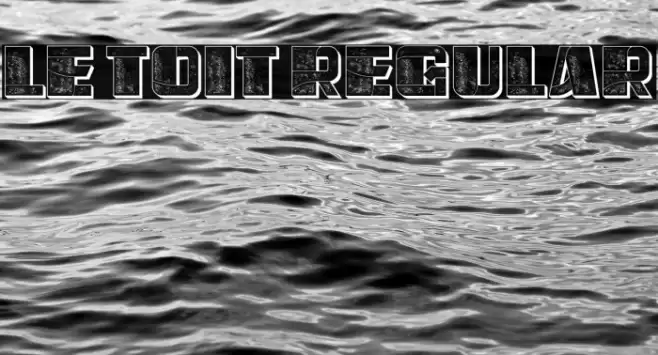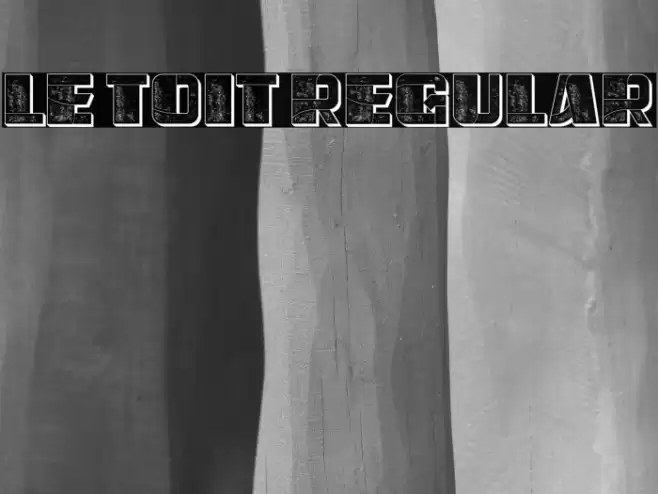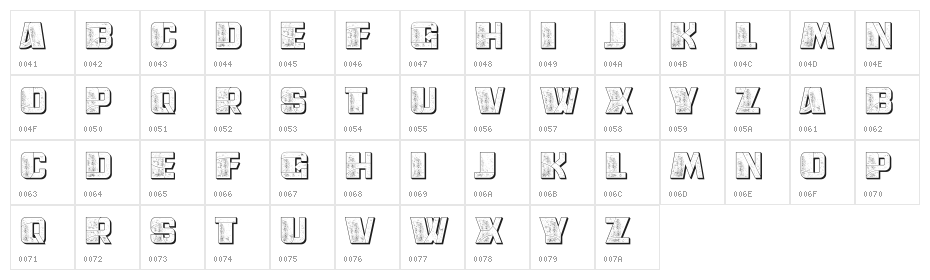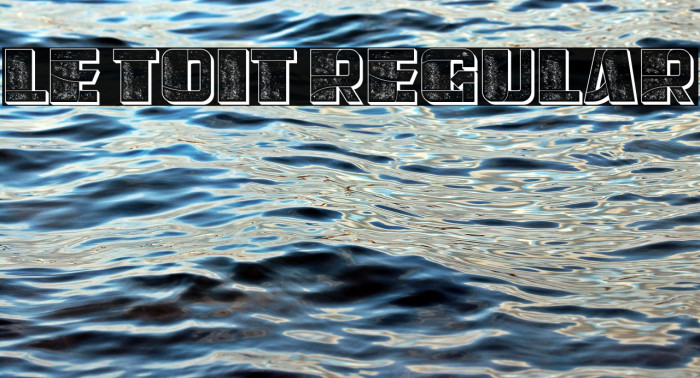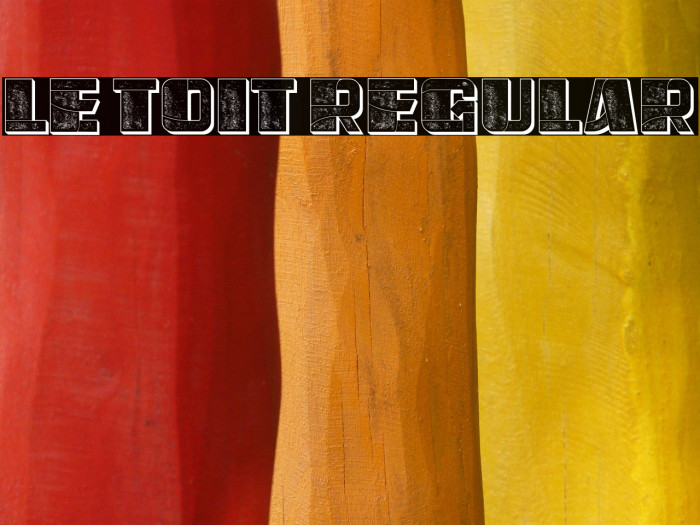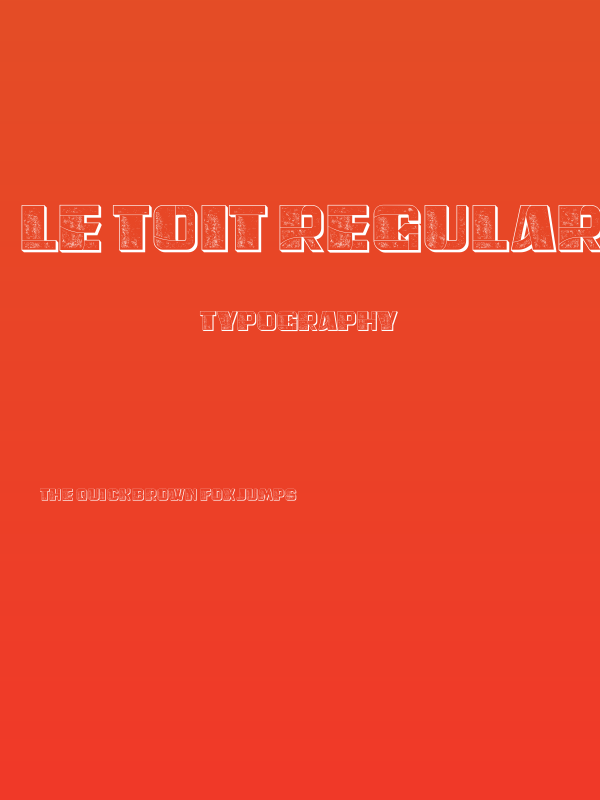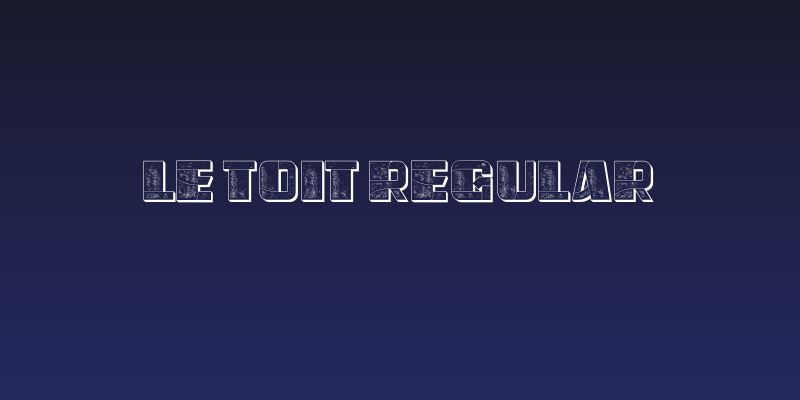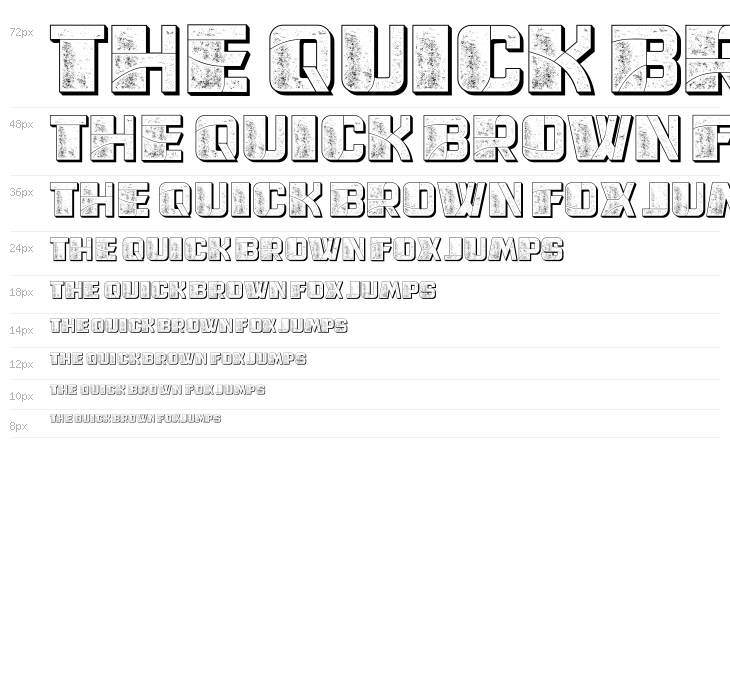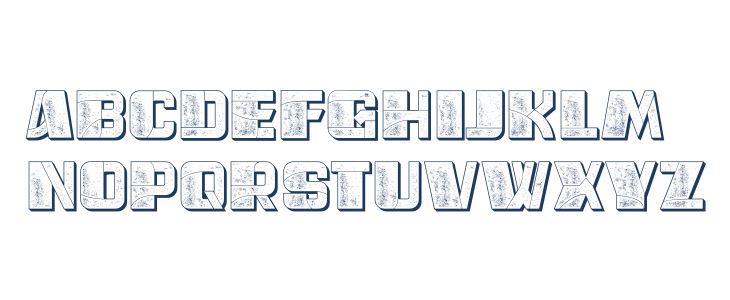
Le Toit Regular Font
Le Toit Regular Description
This font features a bold, three-dimensional design with a distressed texture, giving it a rugged and industrial feel. The letters are uppercase and have a blocky, geometric shape with sharp angles and clean lines. The distressed effect adds a vintage, worn-out look, making it ideal for projects that require a touch of nostalgia or a gritty aesthetic. The font's shadowing and outline enhance its depth, making it stand out in any design. Its unique style is both eye-catching and versatile, suitable for a variety of creative applications.
A bold, distressed 3D font with a rugged, industrial aesthetic from Uncategorized fonts.
- Proposed Projects: Ideal for posters, logos, branding, and packaging designs that require a vintage or industrial touch.
- Overall Style: Vintage